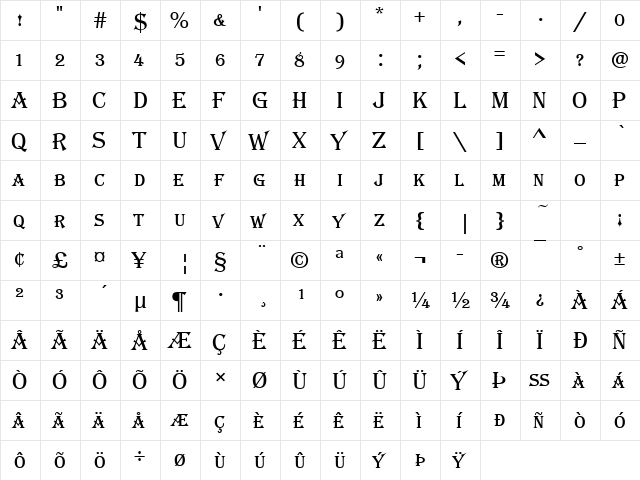
AlgerianBasSCD Regular
Design Context for AlgerianBasSCD Typeface
AlgerianBasSCD takes a measured approach to typography — its balanced proportions and neutral character make it a reliable workhorse for both digital and print work.